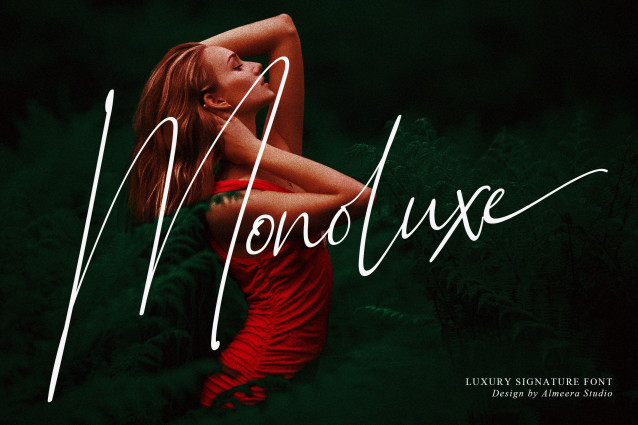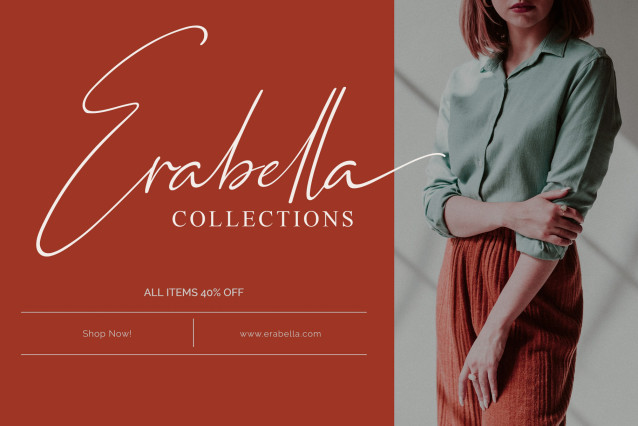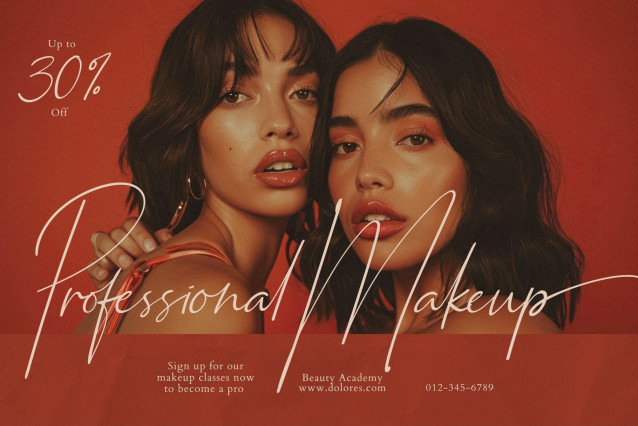
Monoluxe Signature Font
Monoluxe Signature Font – Luxury Signature Font, a sophisticated Handwritten font that exudes luxury and grace, making it the ideal choice for elegant logos, wedding invitations, photography branding, modern websites, and more. This font comes beautifully enhanced with stylish ligatures and delicate swashes at end of lowercase letters, giving your designs that perfect, personalized handwritten touch. Whether you’re creating timeless wedding stationery or adding a touch of elegance to your brand, Monoluxe brings unmatched beauty and refinement to every project.